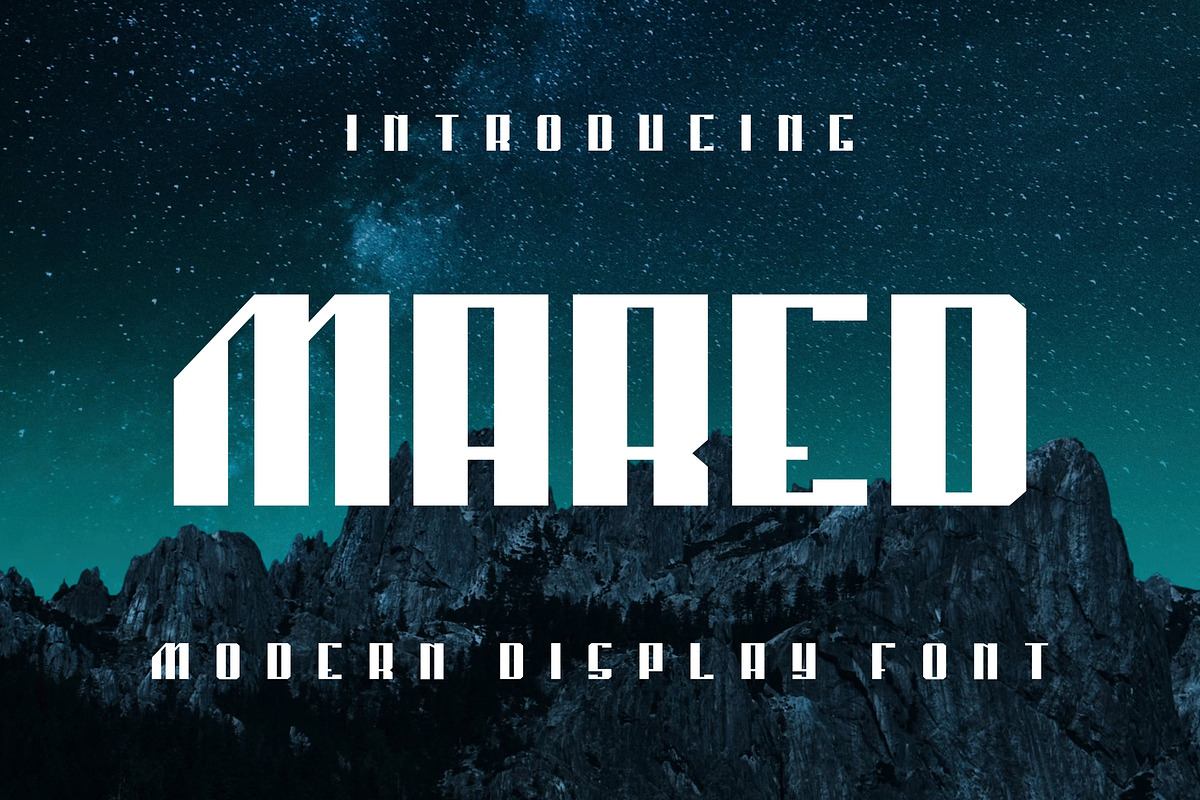
The Mared Modern Font Free Download is a sleek and sophisticated typeface designed to add a contemporary, stylish flair to your designs. With its clean lines and modern elegance, this font is perfect for creating professional branding, logos, websites, posters, and more. Whether you're working on a corporate project, fashion design, or creative content, Mared Modern Font brings a polished and refined look to your work.
Mared Modern Font Free Download is ideal for designers seeking a versatile and high-quality font. Its timeless, minimalist style makes it perfect for modern branding, digital content, or any project that requires clean and professional typography. Download this stunning font today and elevate your designs with Mared's modern appeal!